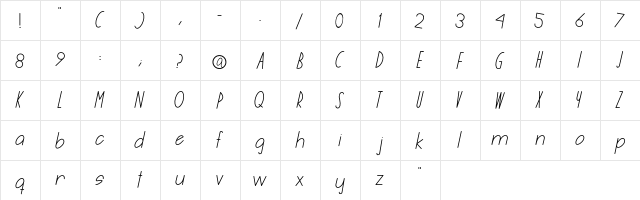
Amaral Medium
Design Context for Amaral Typeface
Amaral offers clean, dependable letterforms without strong stylistic allegiance, making it a practical choice for designers who need flexibility.
Pro Tip: Pair Amaral with a font of contrasting weight or personality to build a more expressive typographic hierarchy.